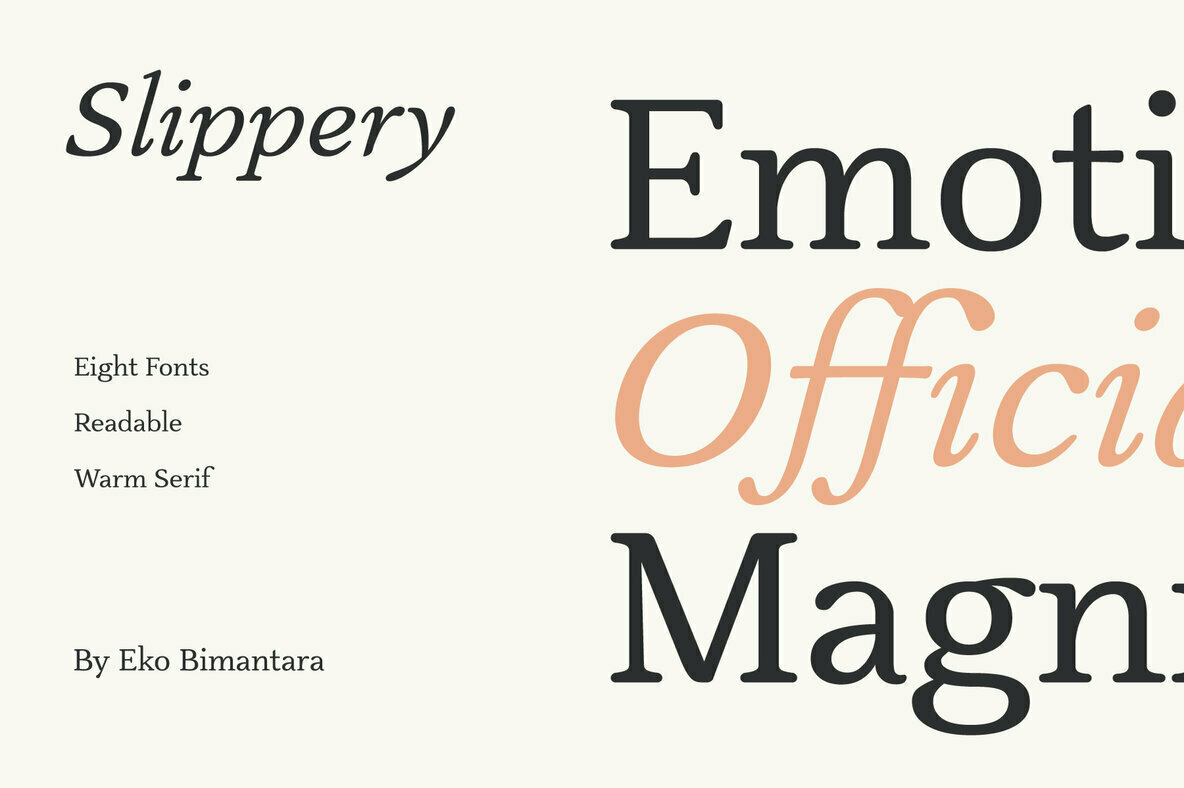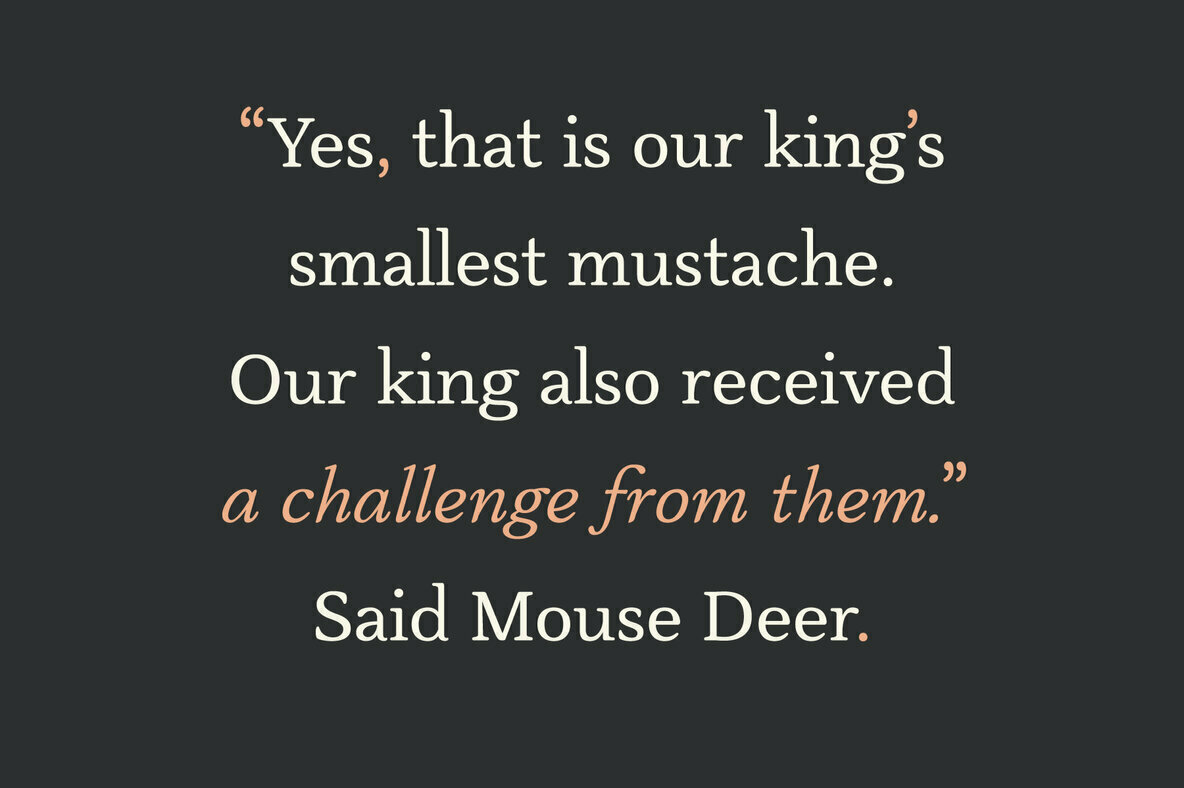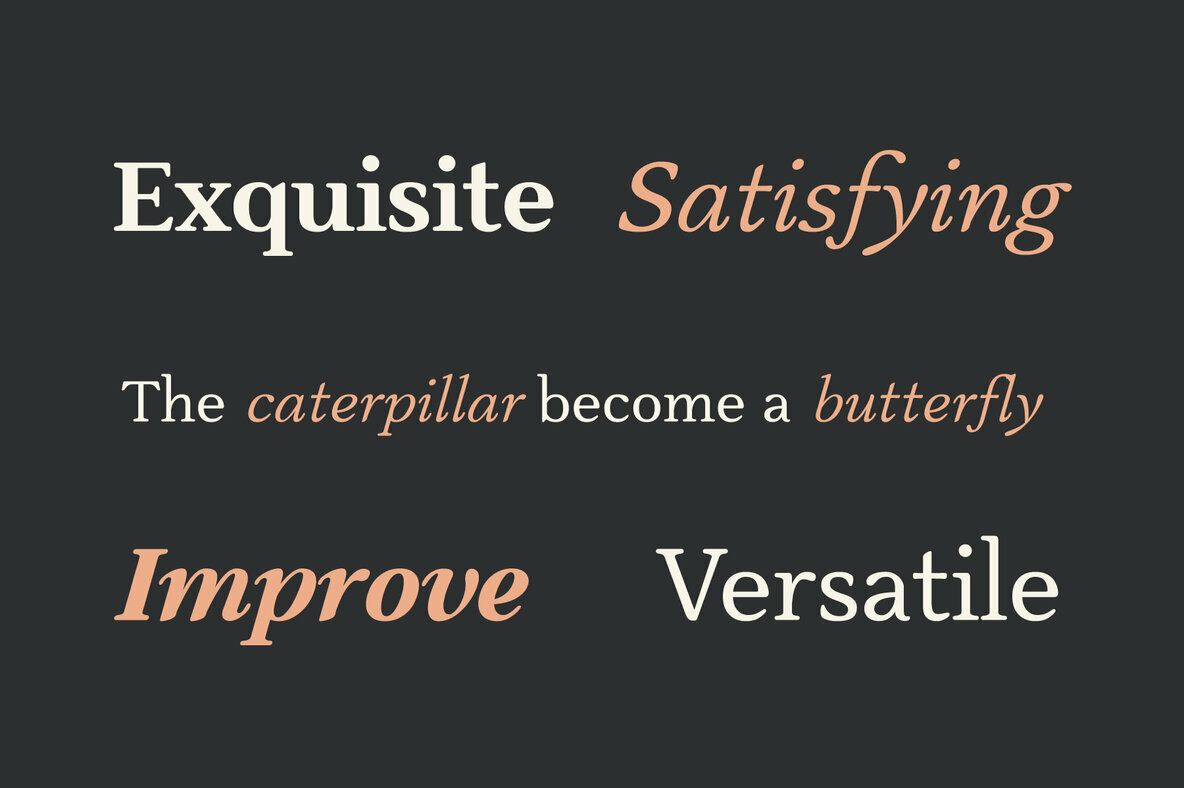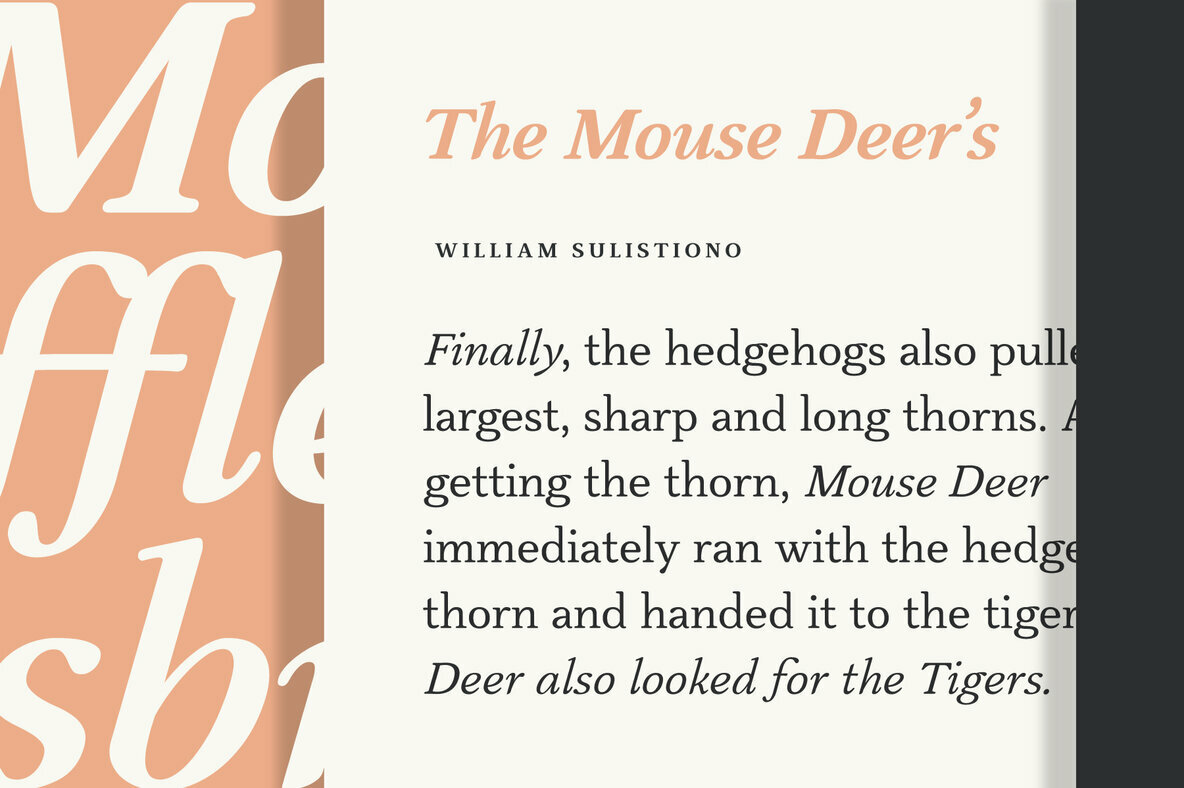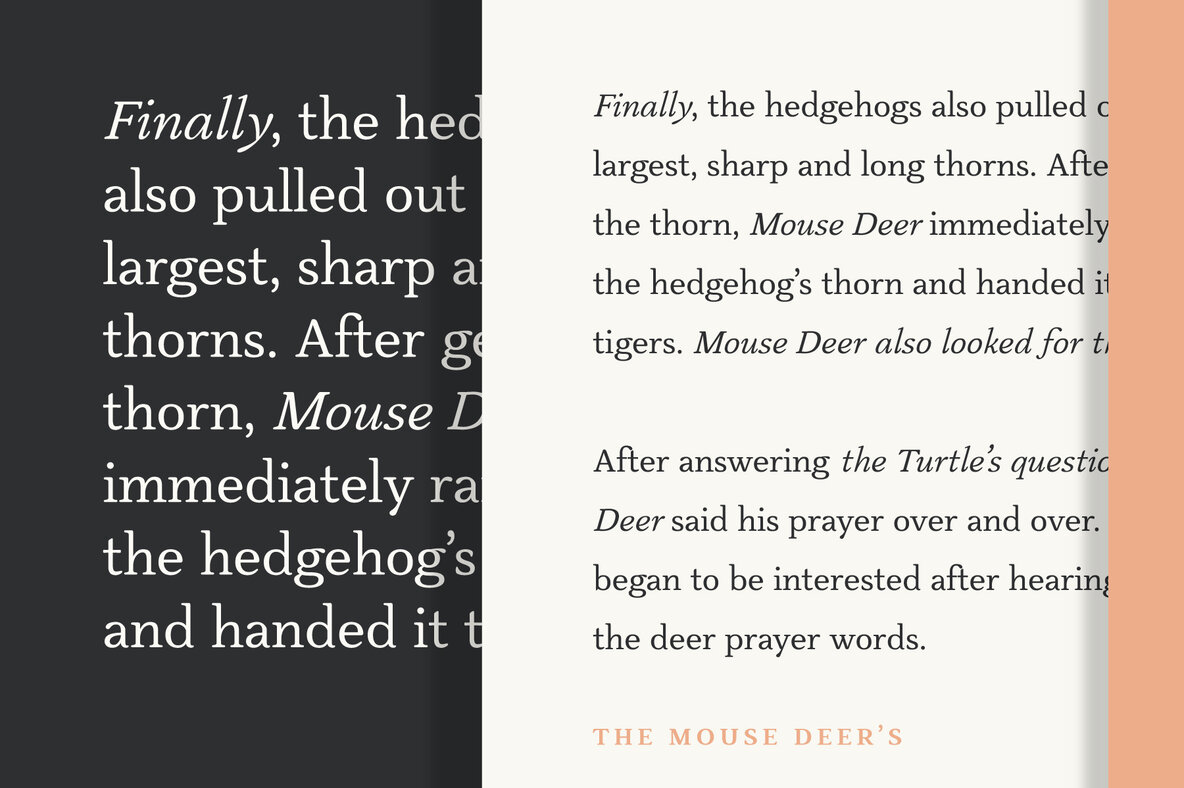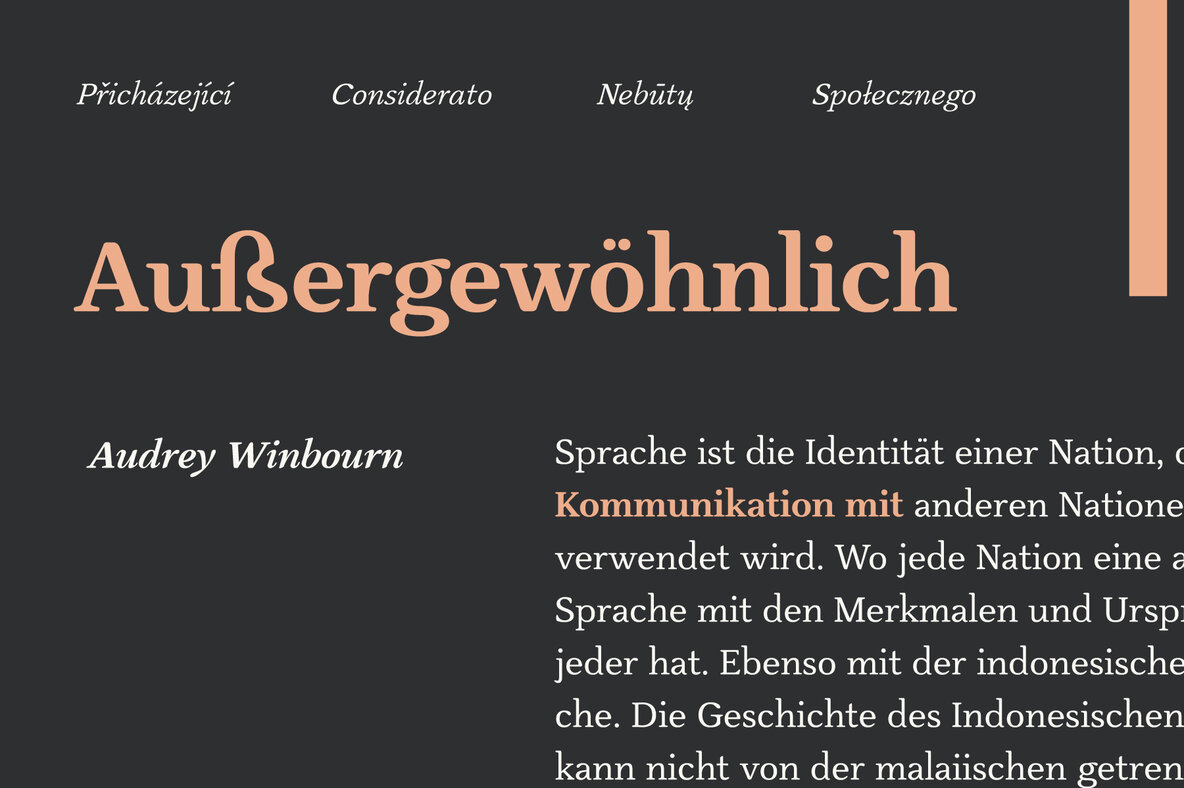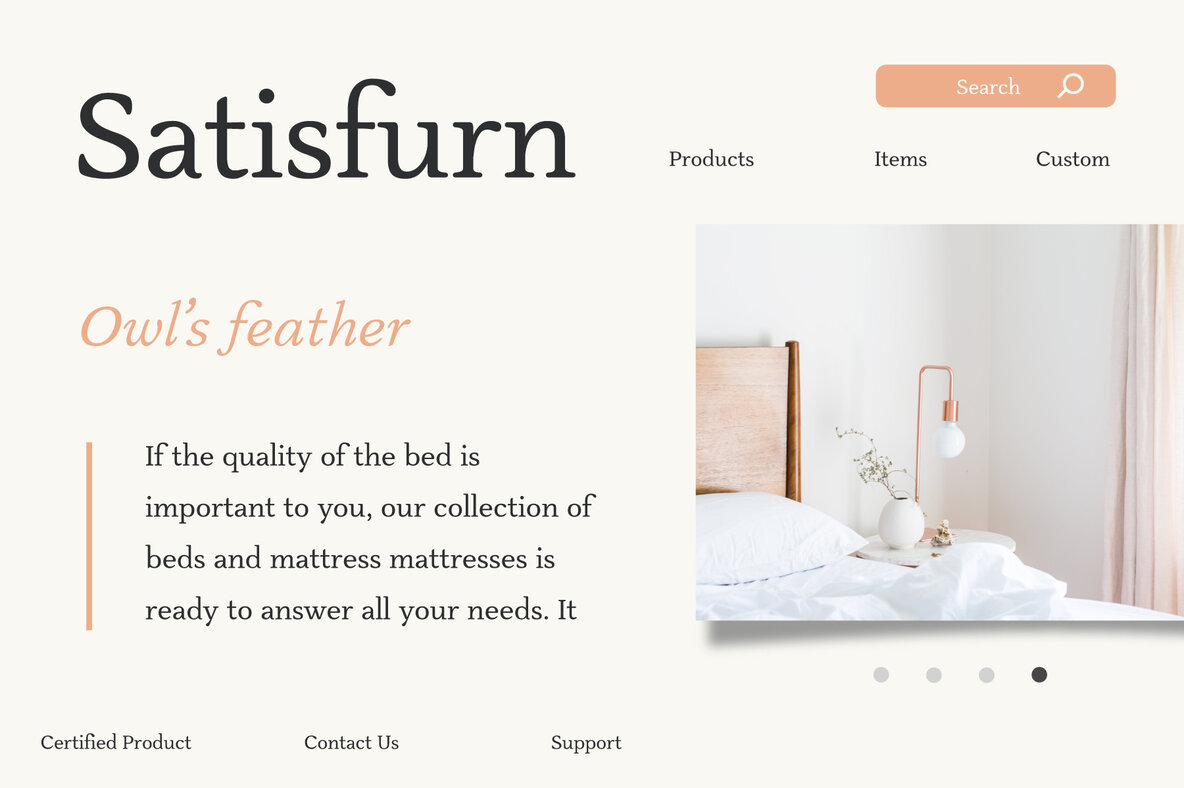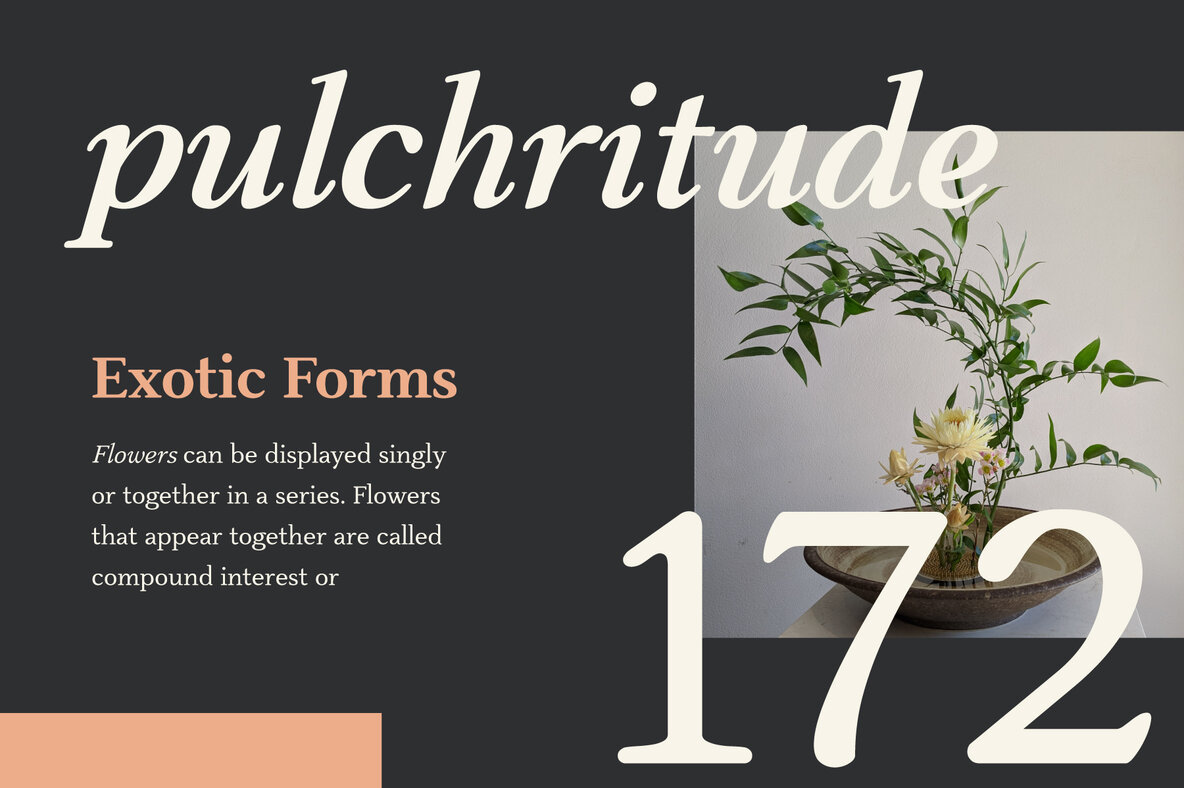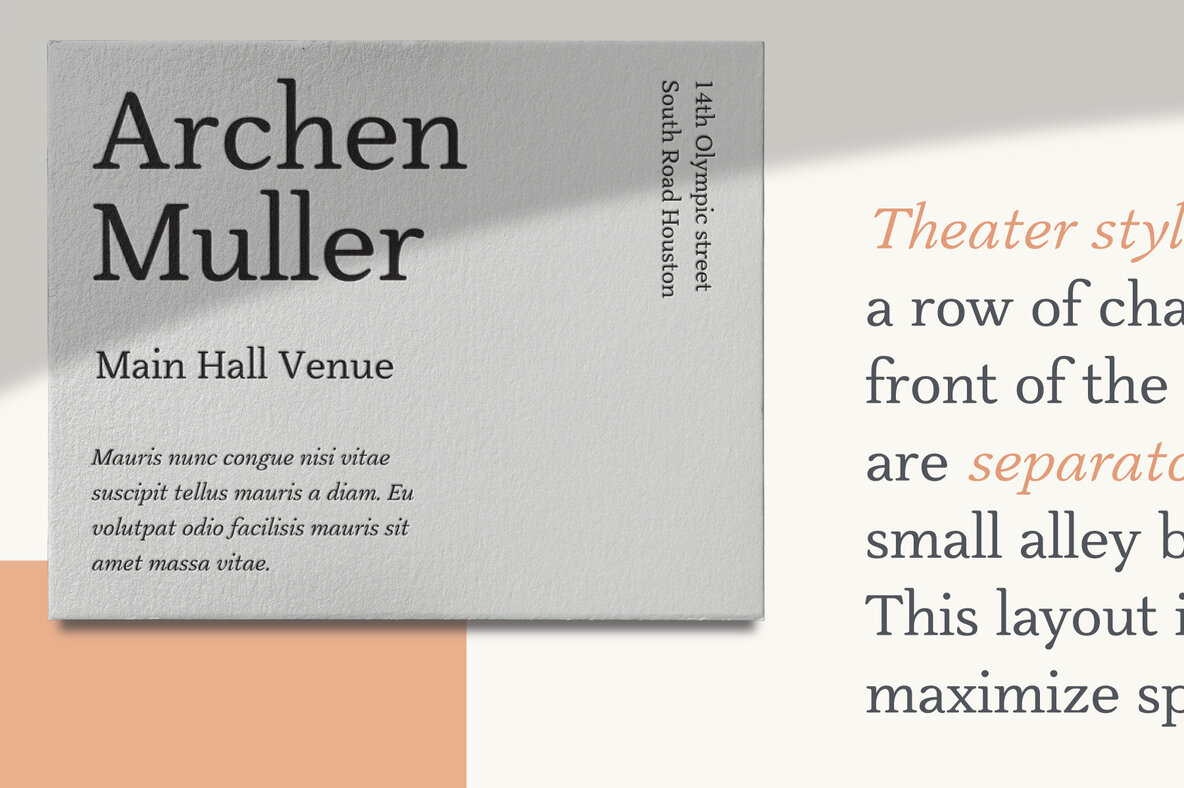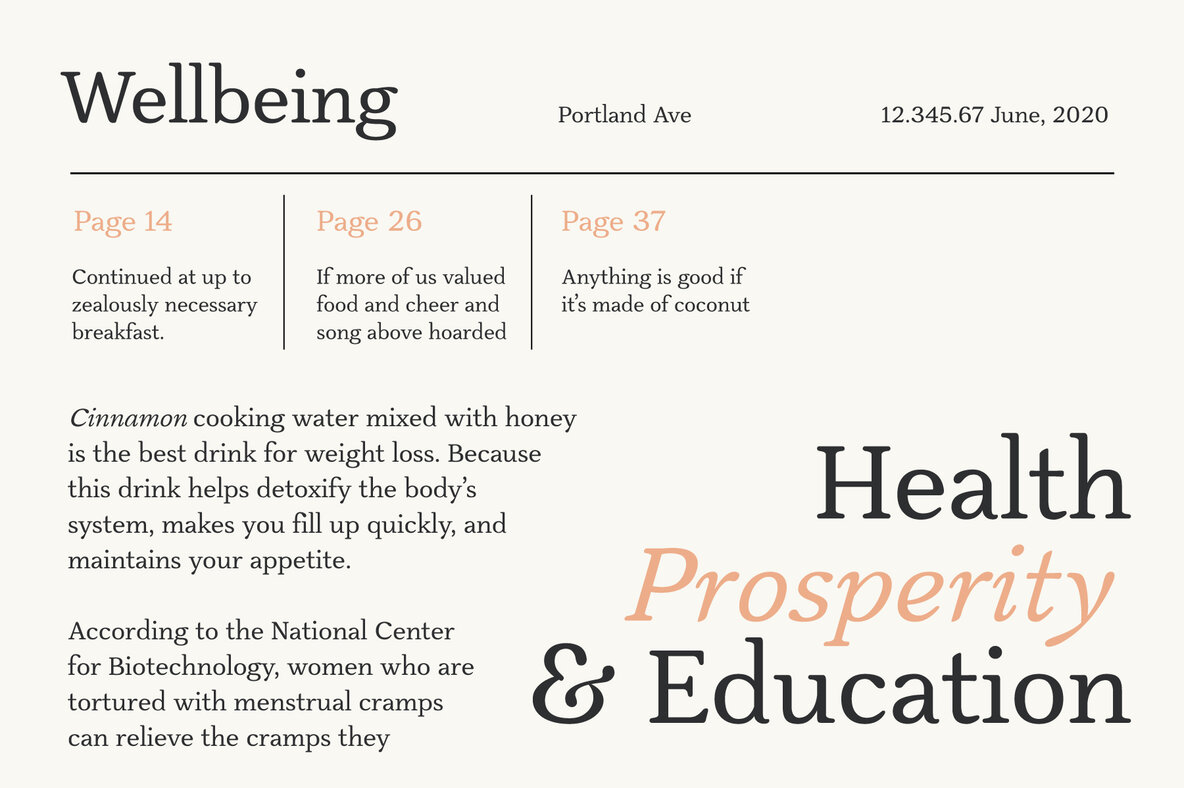
Slippery is a warm serif that's formed with the aim of readability. The letterforms is filled with soft edges, spacious counters, moderate x-height, and slippery italics.